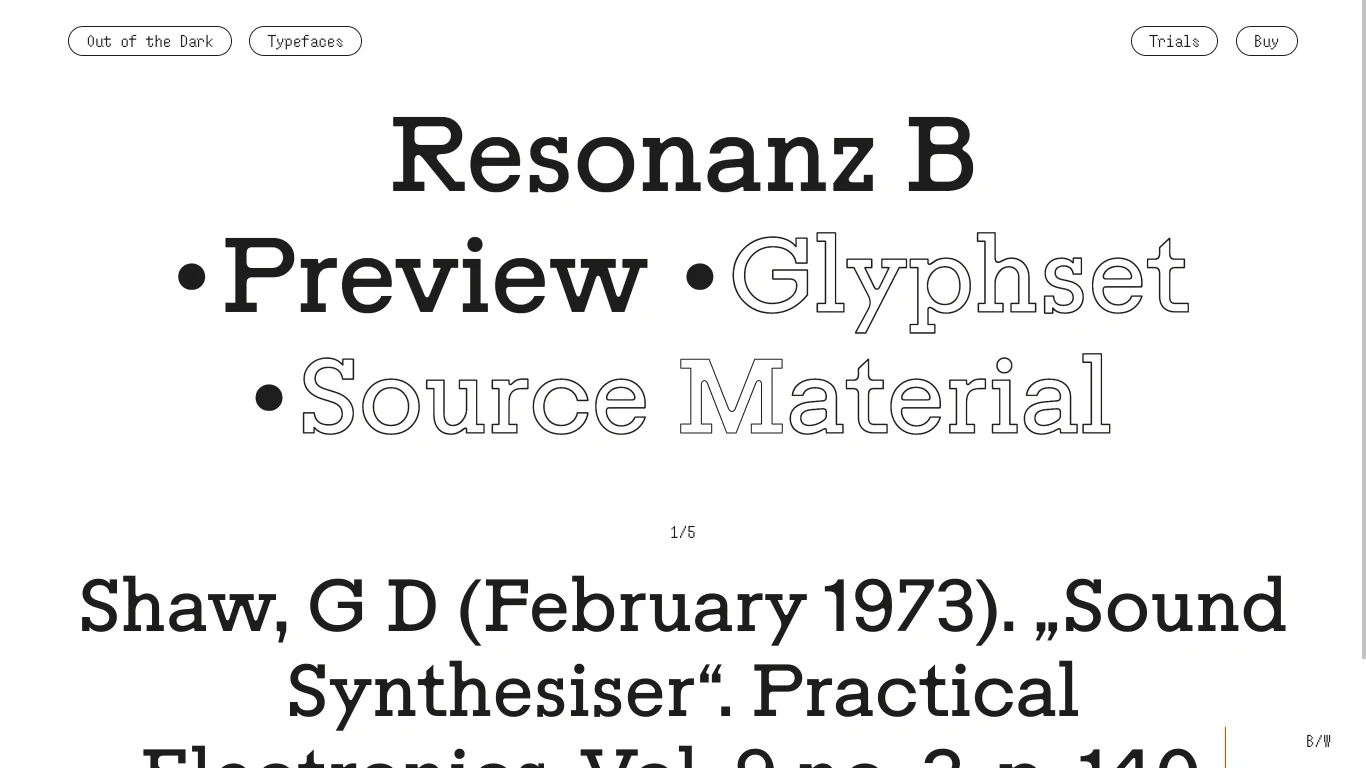
Out of the Dark
Switzerland
2012
Out of the Dark is an independent Swiss type foundry founded by Philipp Herrmann in 2012, renowned for its diverse and thoughtfully crafted retail typefaces available exclusively through its website. The foundry has worked with prominent clients such as North Design, Landor, Studio Hannes Wettstein, Porto Rocha, Jones Knowles Ritchie (JKR), and Collins. Notable typefaces include Blitz Script, a modern monoline script designed for small-size legibility; Gza, a geometric serif inspired by French old-style fonts; Atak, a bold sans-serif with a wide weight range; and Quick Marker, a handcrafted font made with a broad marker pen highlighting tool and form.